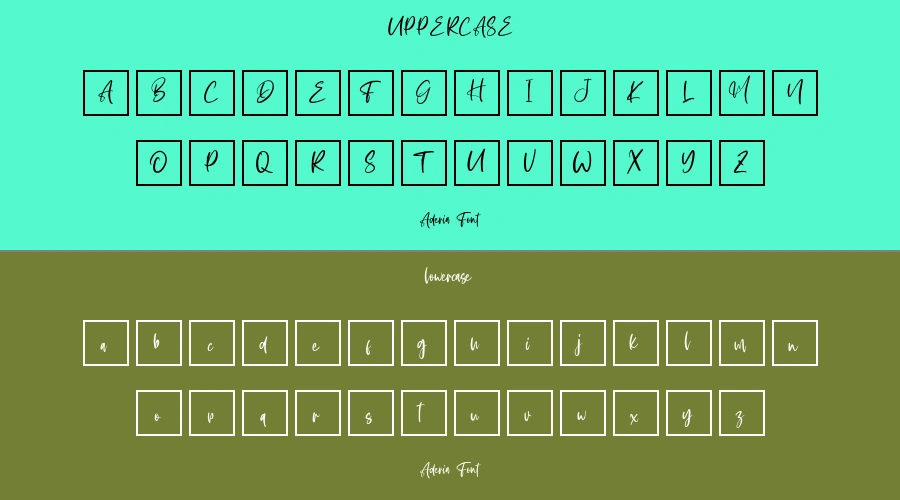
About Aderia Font
Designed with precision, Aderia Font merges ball terminals with legibility in every character. This versatility makes it particularly effective for web design, where clarity and creative potential directly impact communication quality. Each letterform demonstrates meticulous craftsmanship.
Technical excellence shines through elements like hairline details and period ligatures, enhancing typographic versatility. In running text settings, Aderia Font proves its worth through superior emotional response. The thoughtful execution of joint construction and creative expression ensures professional results.